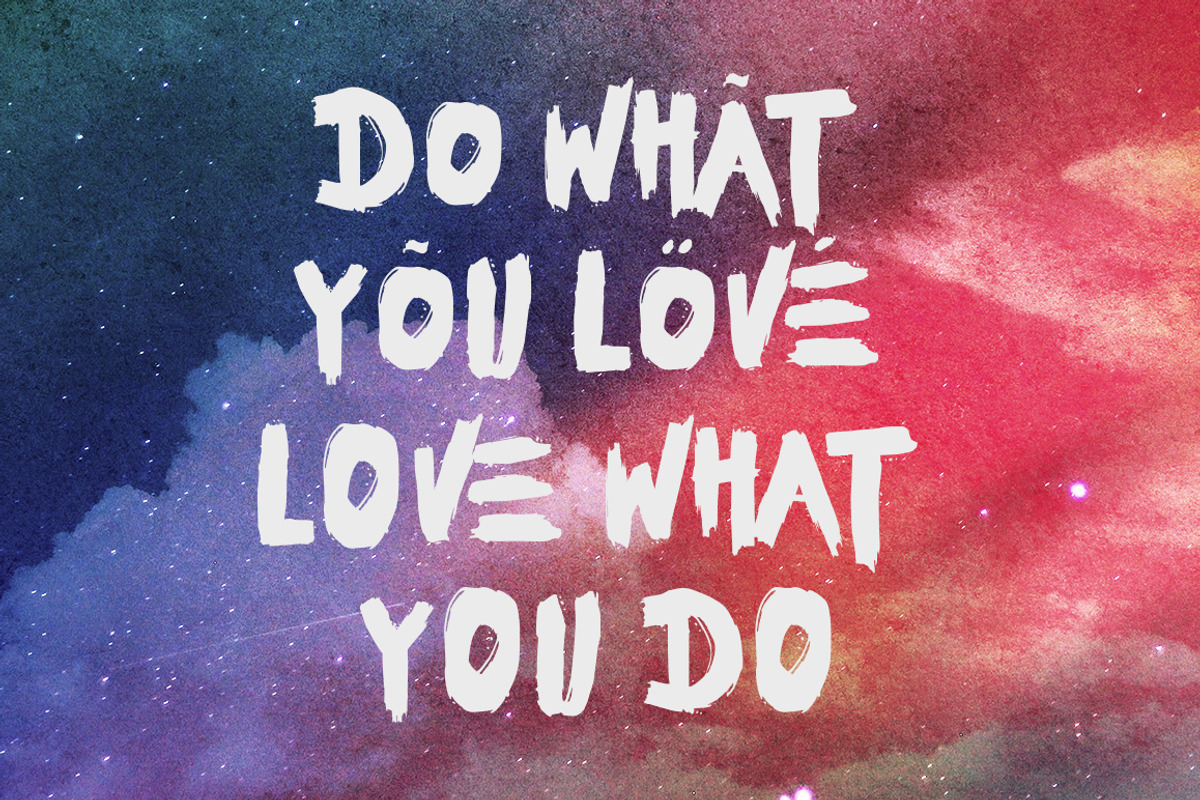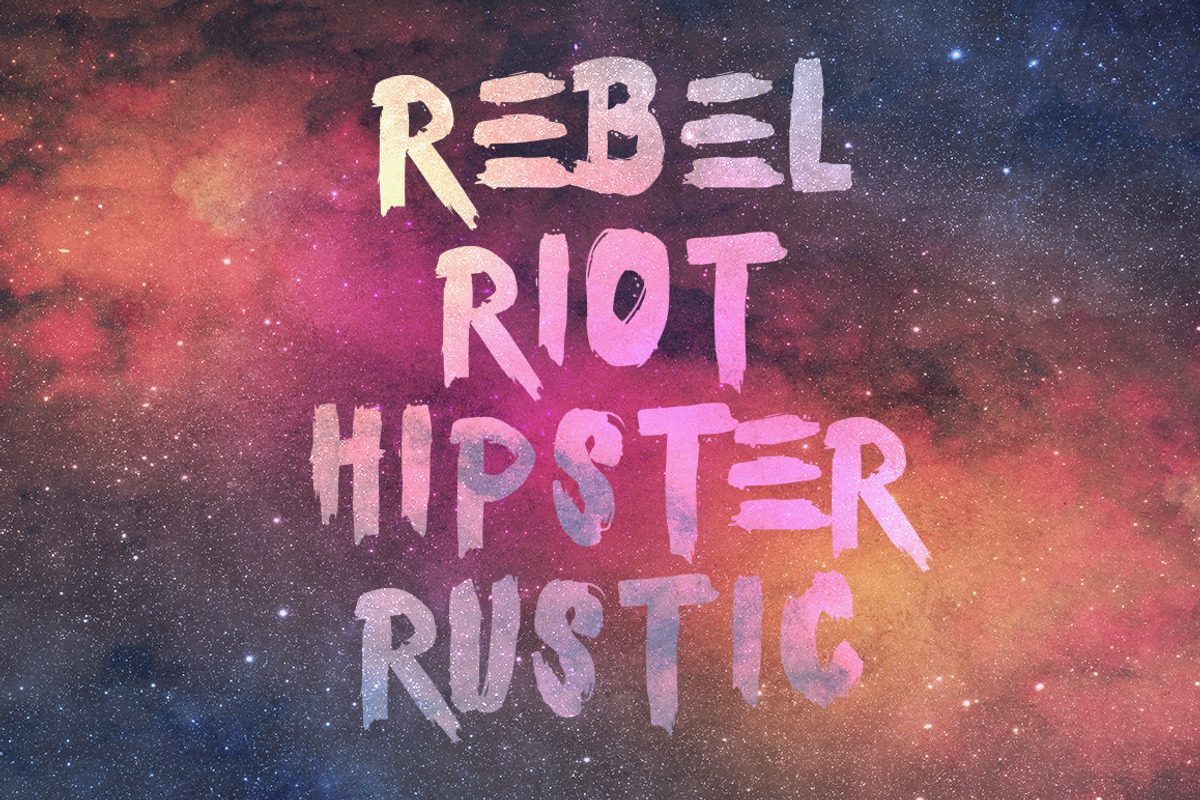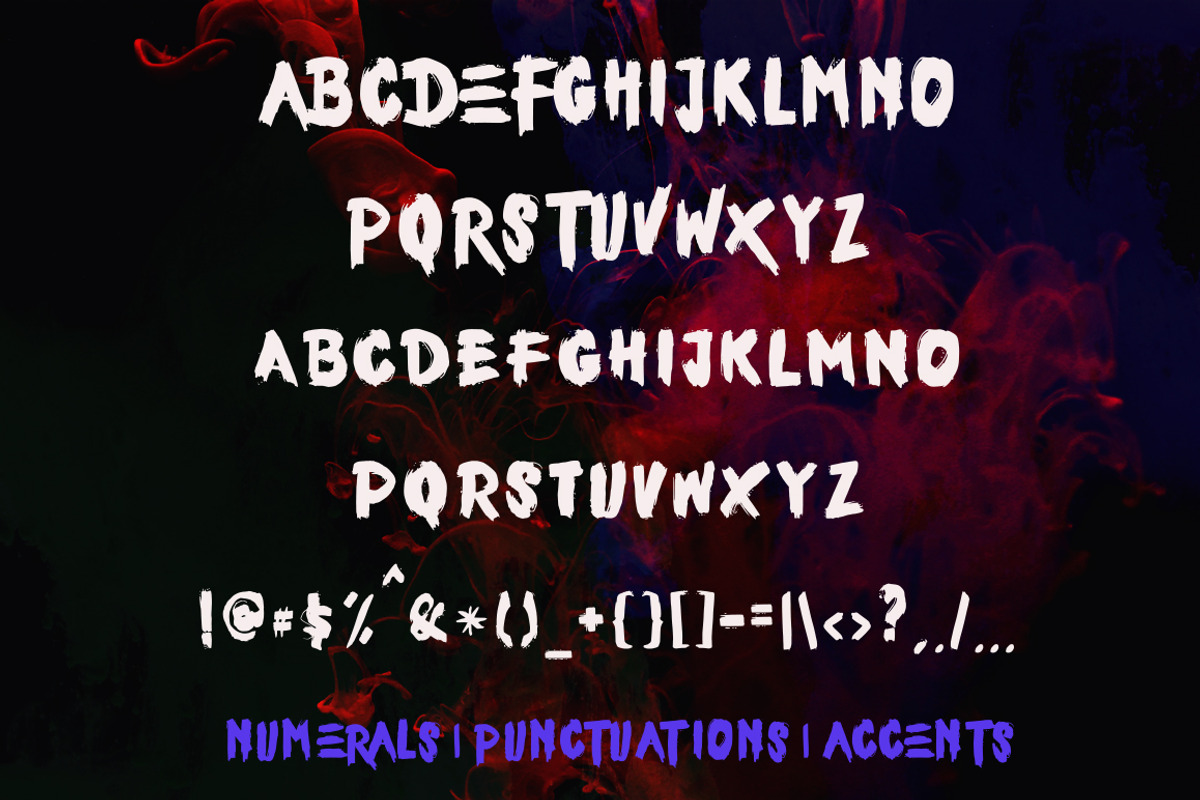
Sale ! 50% off Willex Brush Font by fopifopi is a font selected for branding, posters, packaging, typography.
- It comes with 241 characters included Uppercase, Lowercase, Numbers, Punctuations, Currency, and Accents.
Sale ! 50% off Willex Brush Font by fopifopi fits naturally into Branding, posters, packaging, typography.